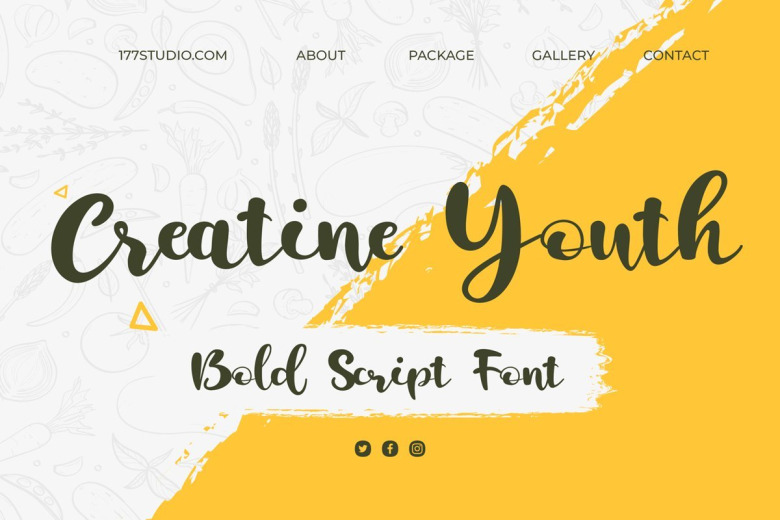
Creatine Youth Font
Creatine Youth Script Font is a new bold script font that is very well designed and has contextual alternates features so it can look like handwriting, perfect for your extraordinary projects. Give your designs an authentic handcrafted feel.